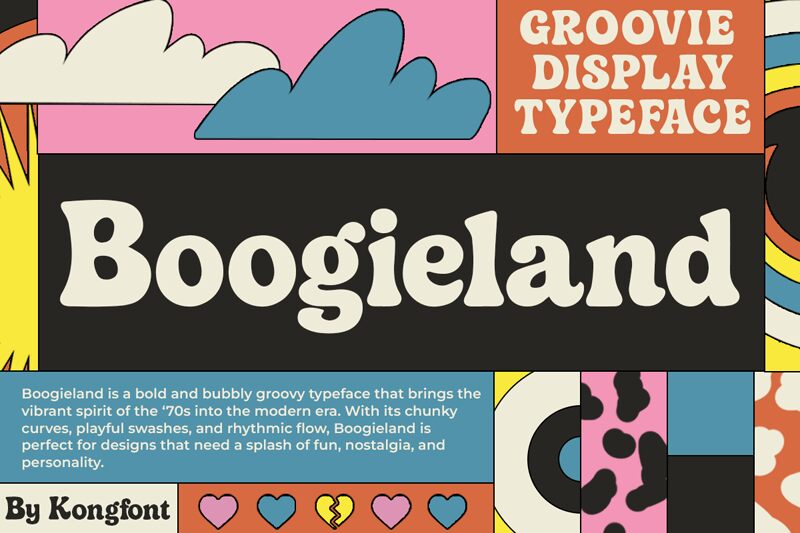
Boogieland font by Kong Font screams the return of the disco era in its retro-inspired and groovy letter form design. Crafted to emanate a nostalgic vibe, the typeface is vibrant, playful, whimsical, and eye-catching. Its bubbly characters with dynamic curves, wide center structure, and occasional thin additions leading to pointy edges create curios combinations with the potential to give character to just about any design. Available as a free font, Boogieland comes as a handy tool for designers looking for an element of surprise, lots of creativity, and a properly infused atmosphere in their work.
Boogieland is a personality-driven display font best used in headlines such as magazine headings, book covers, and movie posters. It can also be part of branding projects developing an aesthetic for special occasions such as weddings, especially if used for logo design, hang tags, or other clothing accessories. The font has also been featured in logotypes and short copy for advertising collaterals, both print and digital.